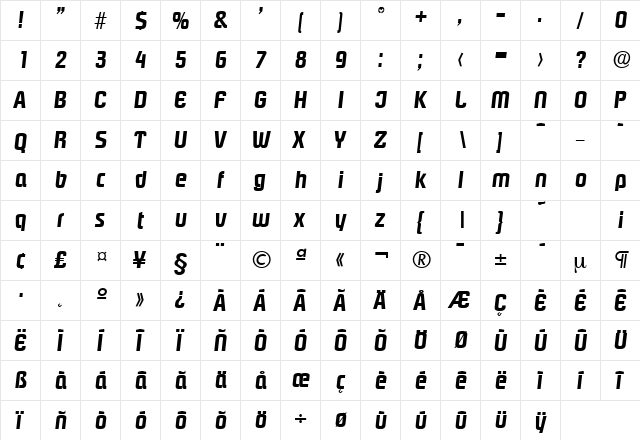
Pasadena-Serial BoldItalic
Design Context for Pasadena-Serial Typeface
Pasadena-Serial is a composed and adaptable typeface that performs quietly and consistently across a wide range of design contexts. The slanted form adds forward momentum and visual energy. The heavy weight commands attention and anchors typographic hierarchies.
Pro Tip: Use Pasadena-Serial for emphasis, pull quotes, and subheadings where its slanted energy can add rhythm to the layout.